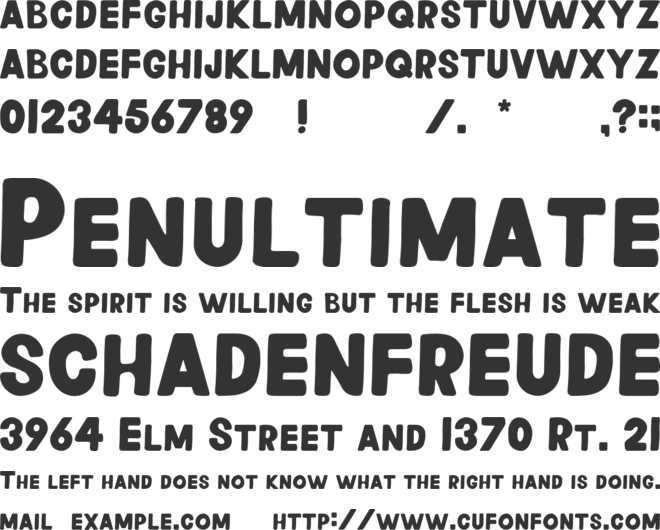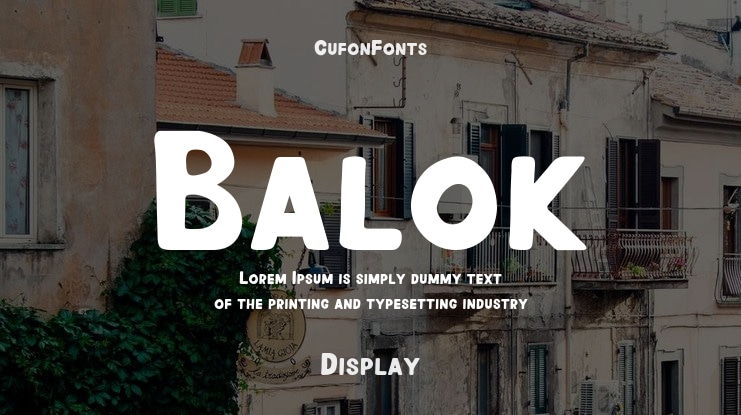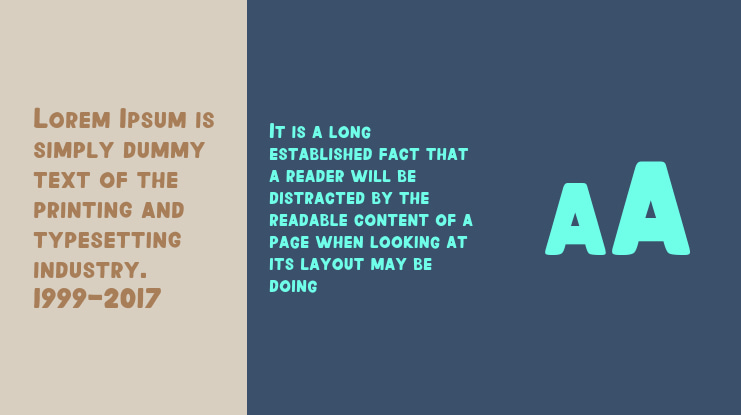
Balok Font
Balok Bold is a heavyweight display font with thick, chunky strokes and a bold, confident presence. Its wide structure and strong letterforms command attention at a glance, making it perfect for headlines, logos, posters, banners, menu headers, and apparel designs. The impactful characters bring maximum visual punch to branding and promotional graphics.